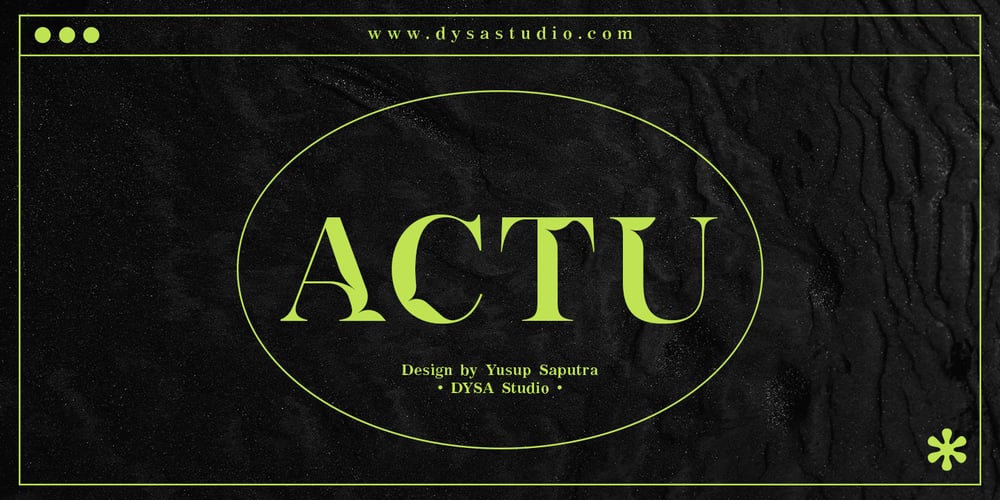
Actu Font Family was designed by Yusup Saputra and published by DYSA Studio. Actu contains 1 styles and family package options. Actu is a typeface inspired by the beauty of classic serif style, fused with modern touch.Actu offers many possibilities to be applied in many graphic or editorial projects. Perfect choice for people looking for clean, modern, minimalist, elegant, beauty design styles. Suitable for almost any graphic designs such as logo, branding materials, business cards, gift cards, t-shirt, cover, thumbnail, print, poster, photography, quotes .etc